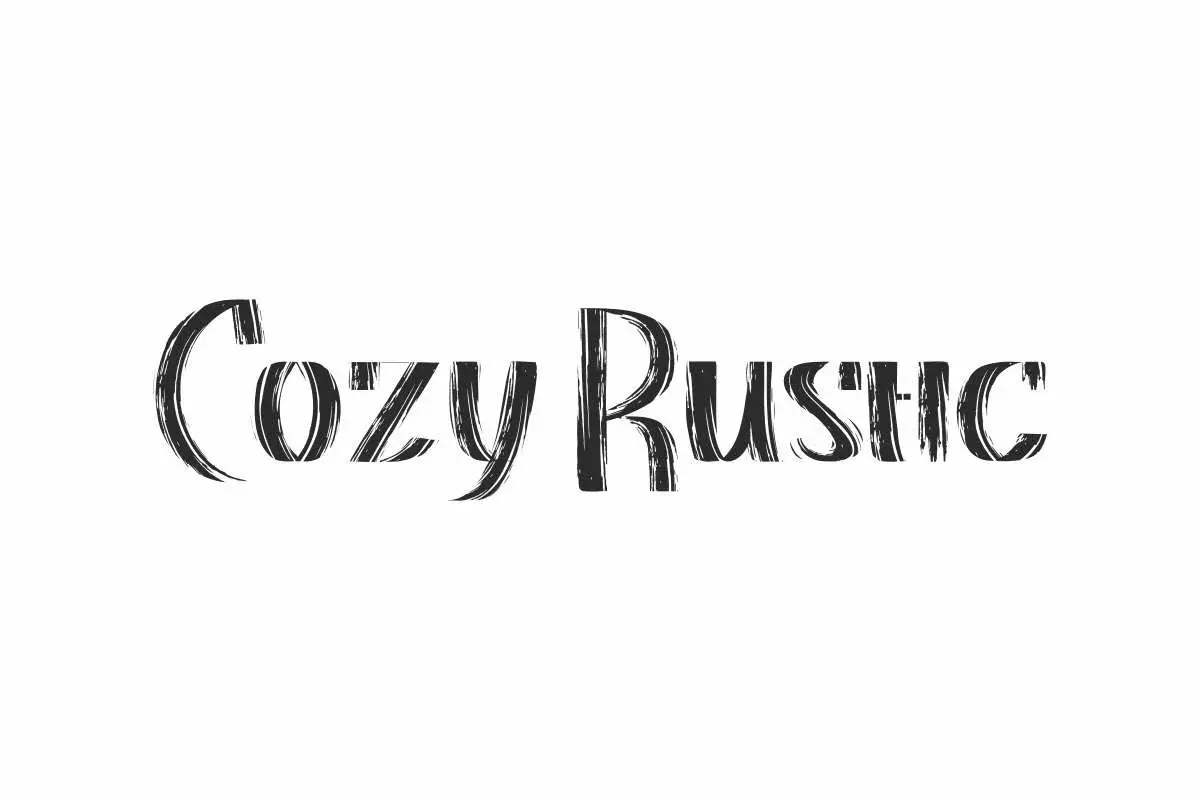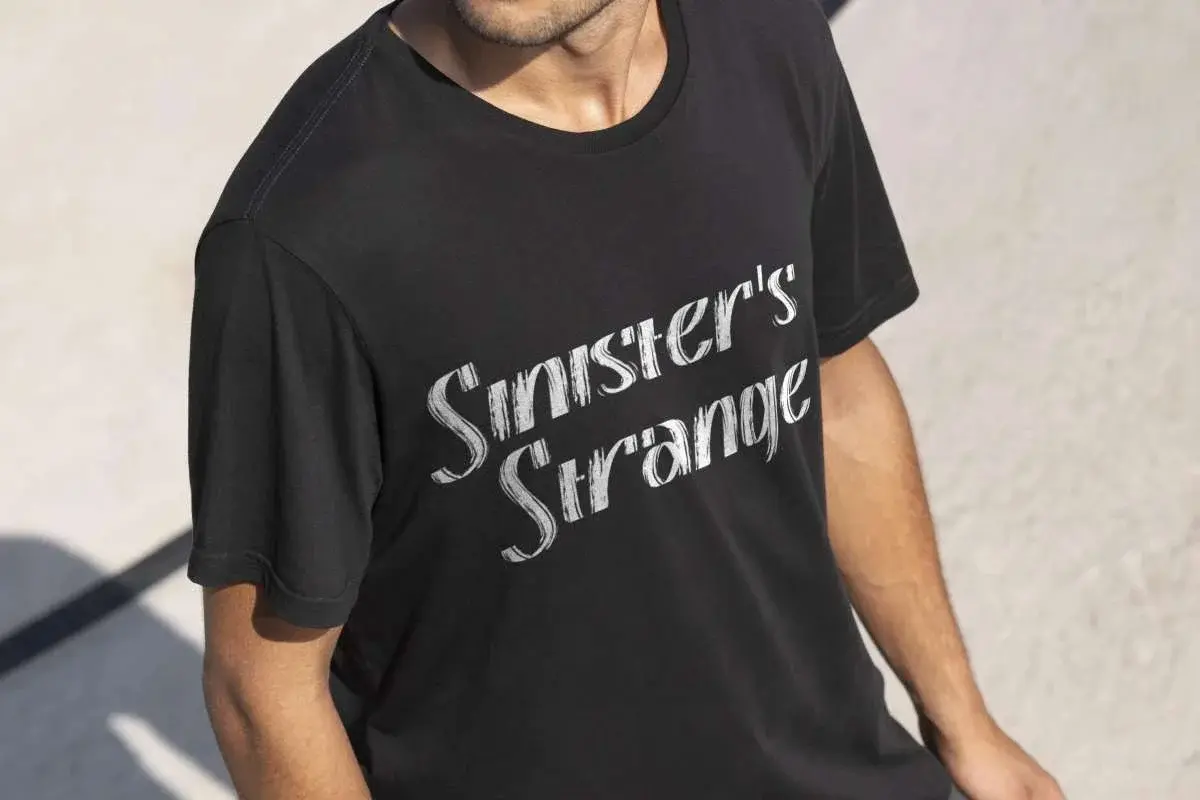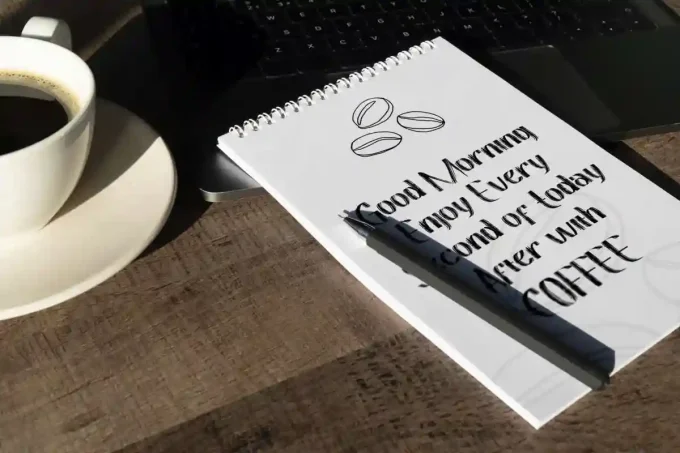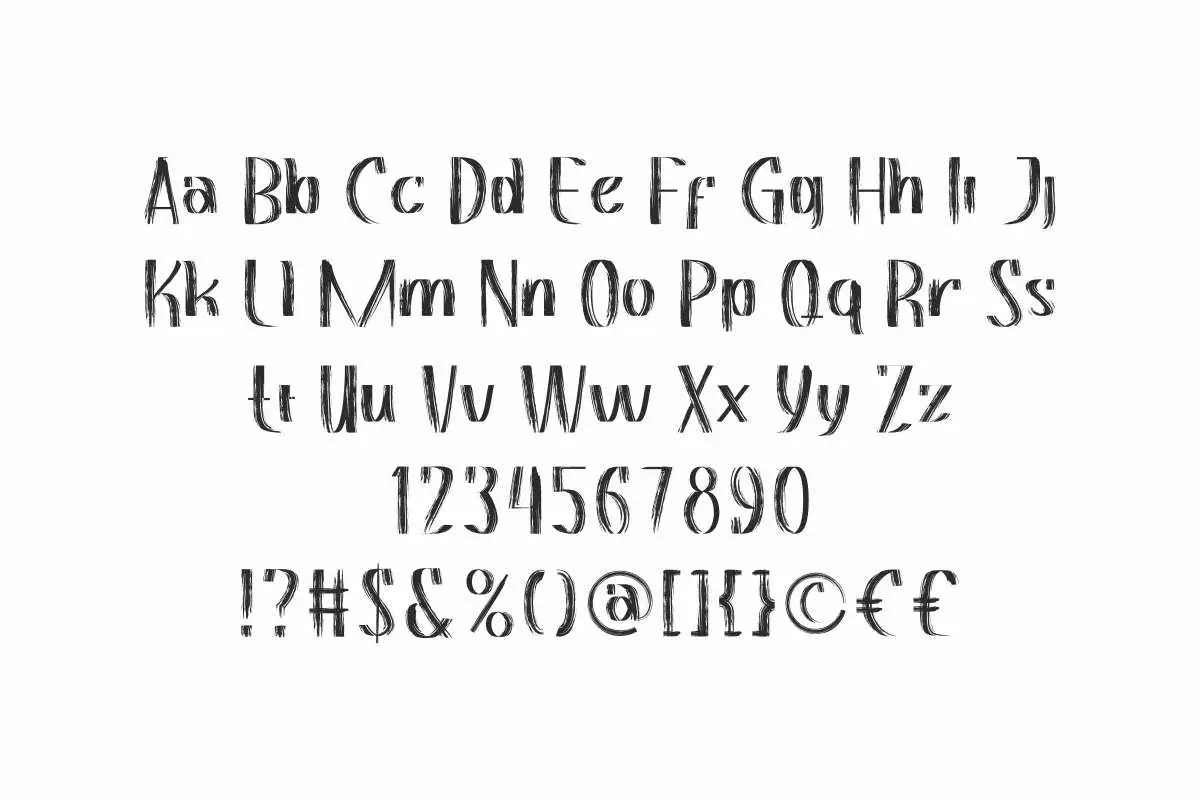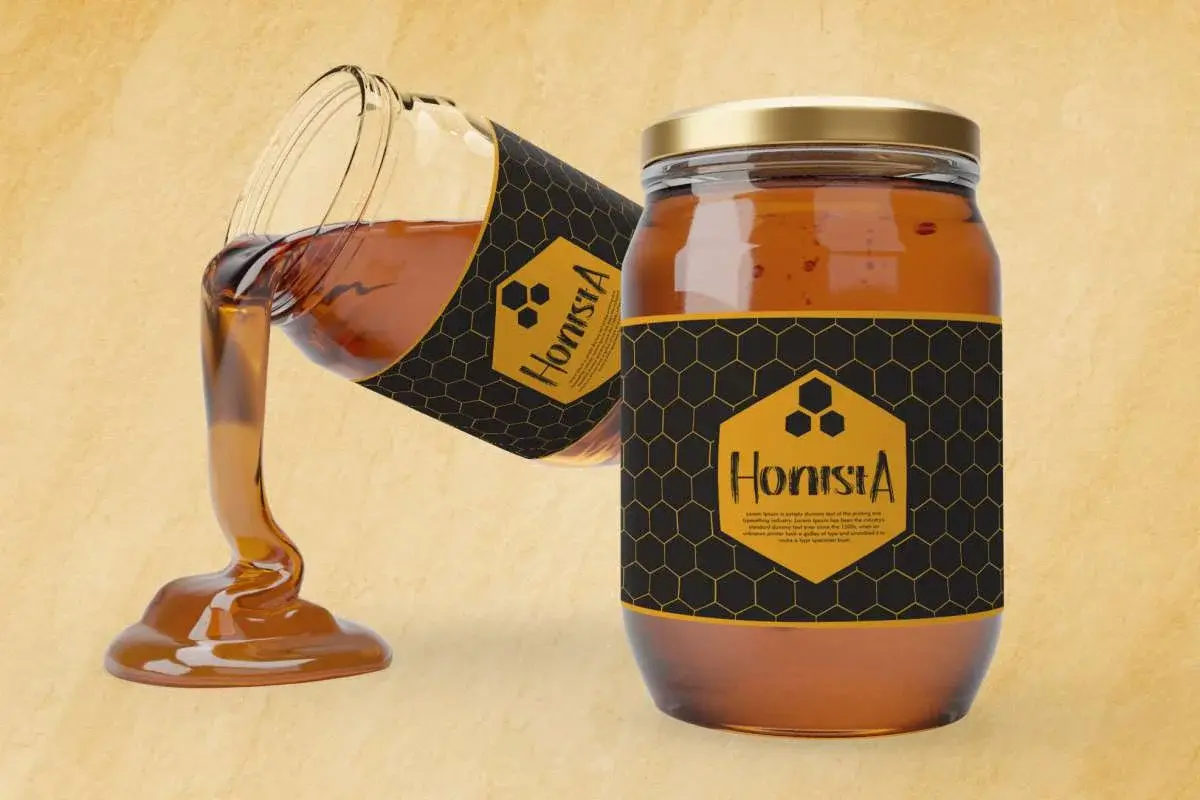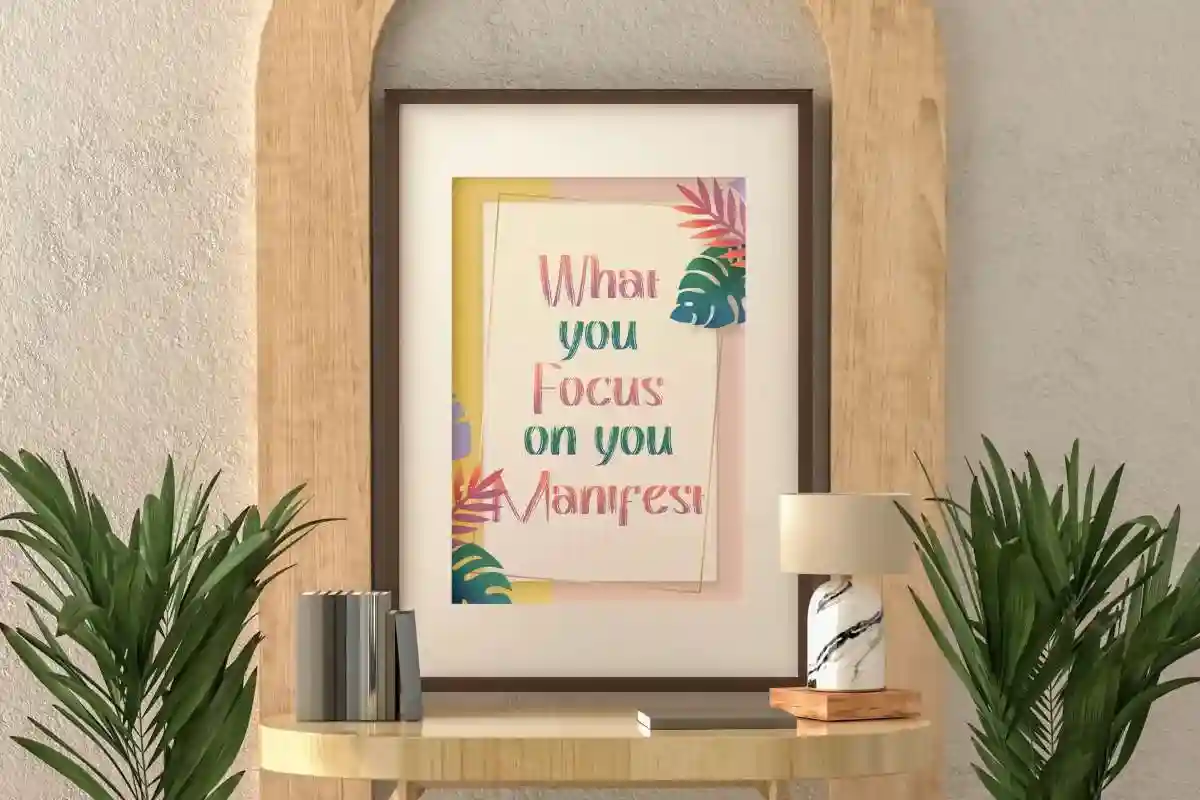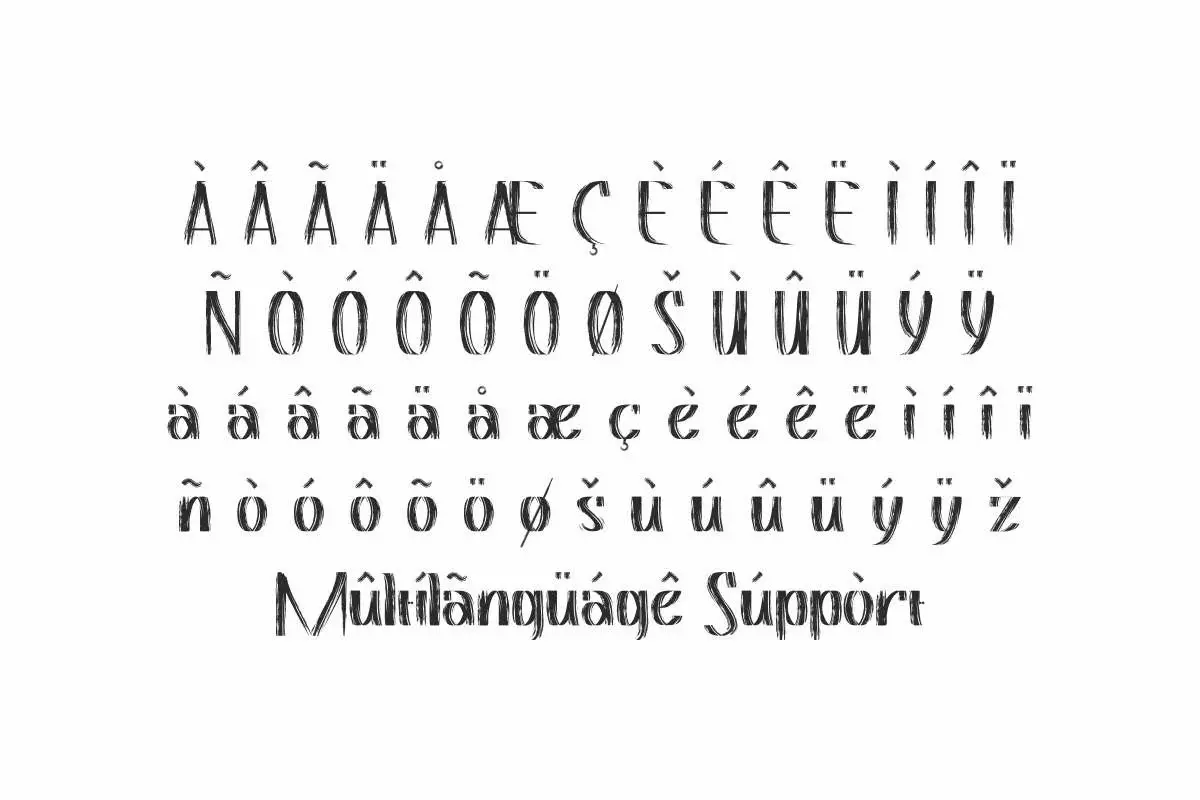
Cozy Rustic Font is a classic brush display with a rough texture that is suitable for boutique, coffee shop, headlines, label, quotes, etc.
Cozy Rustic Font is an authentic brush with a rough texture created by NihStudio. It will be suitable for many industries such as, agriculture, apparel, café, carpenter, craft, farming, game, honey, movie, publishing, and many more! brush on this font like wood grain!
Cozy Rustic Font would be good for billboard, creating logo, custom design, label, printed materials, product packaging, and anything that needs a classic touch that’s awesome and easy to read.
Cozy Rustic Font comes with a full set of Uppercase and Lowercase Basic Characters, Number, Punctuation and Symbol, and also supports multilingual characters. Ready to use both on Windows machine or Mac with simple installations. It’s tested to work well in the Adobe Apps (Illustrator, Adobe InDesign, Adobe Photoshop) CorelDraw, and others. PUA Encode Characters means you can access all the glyphs and other characters easily – Fully accessible without additional design software.